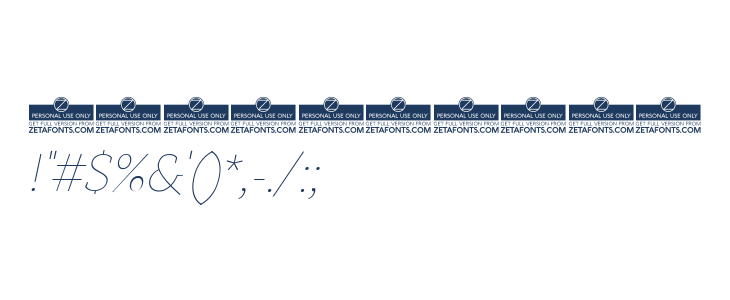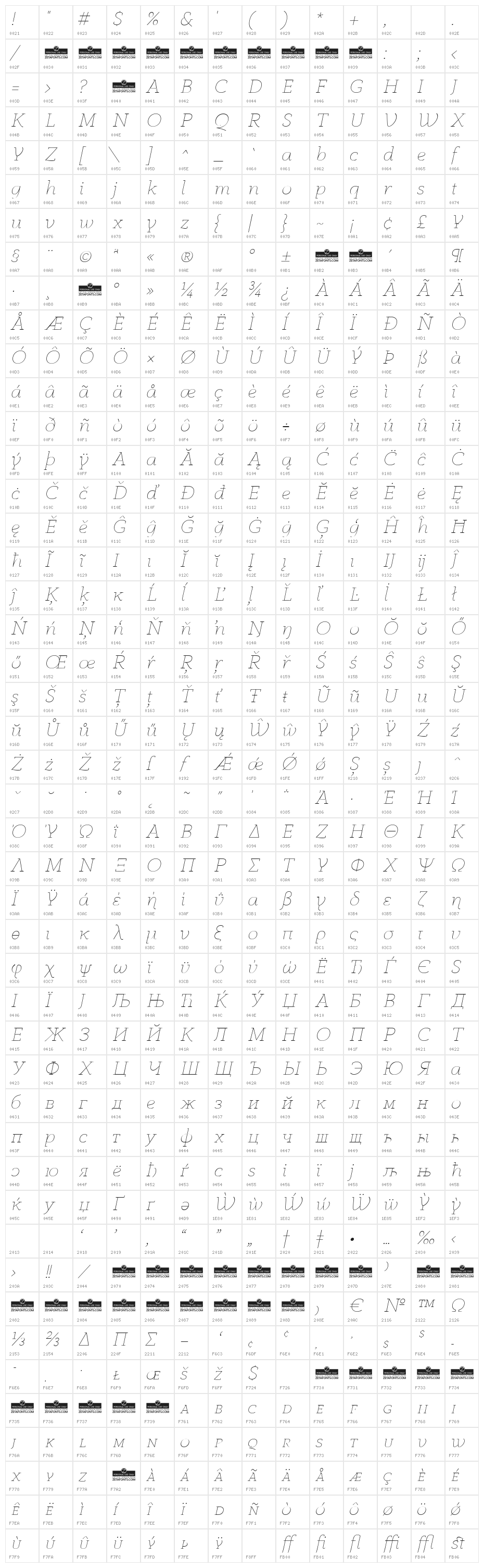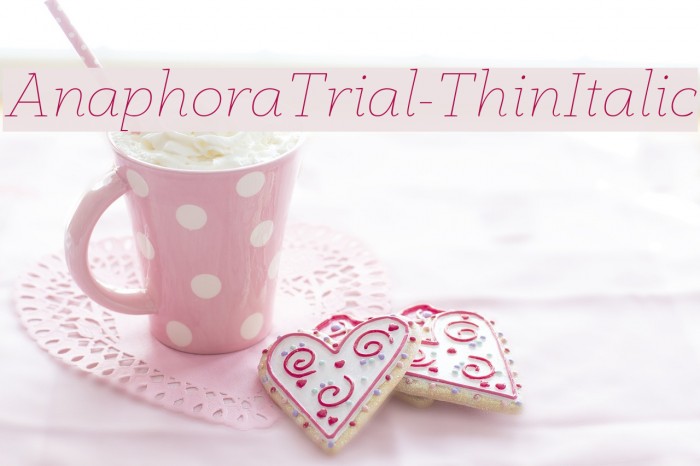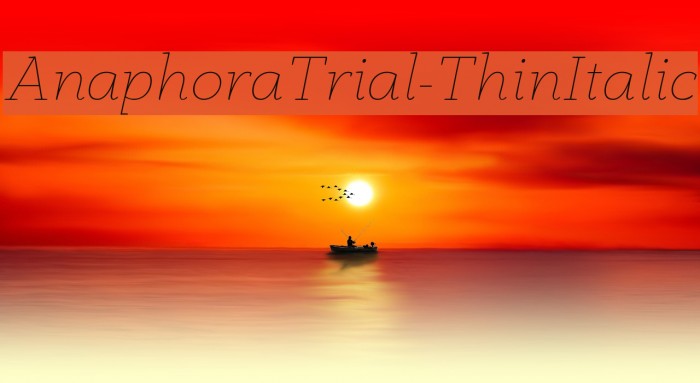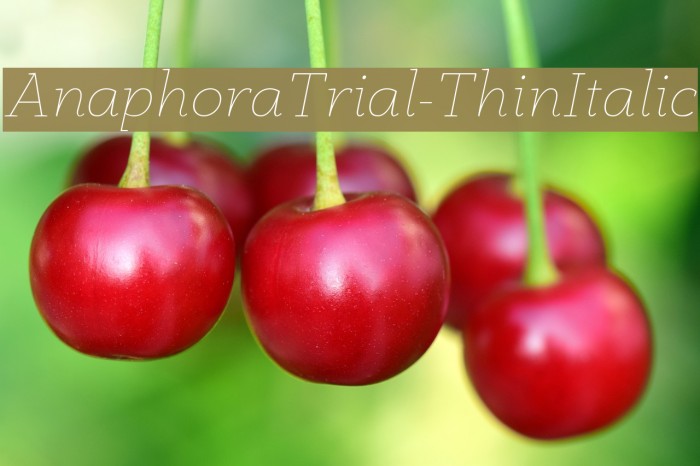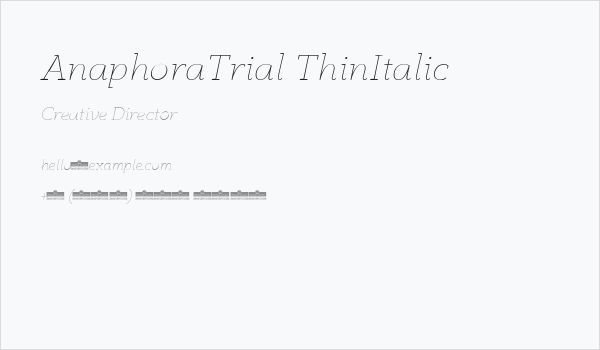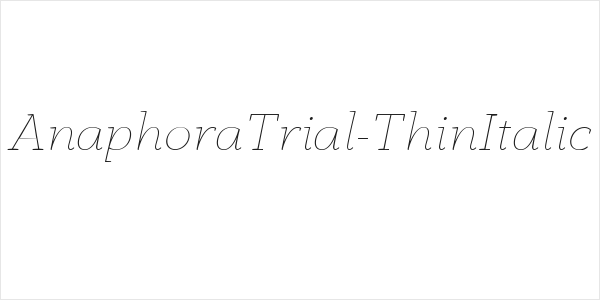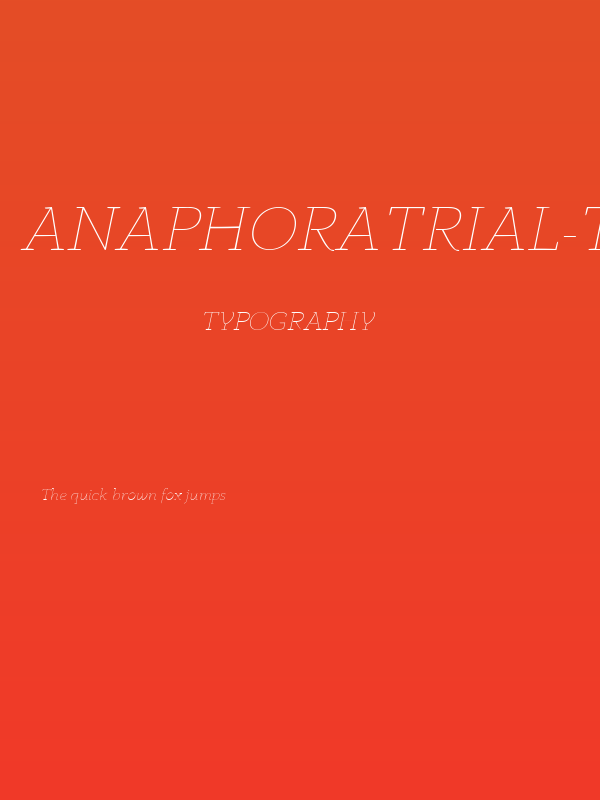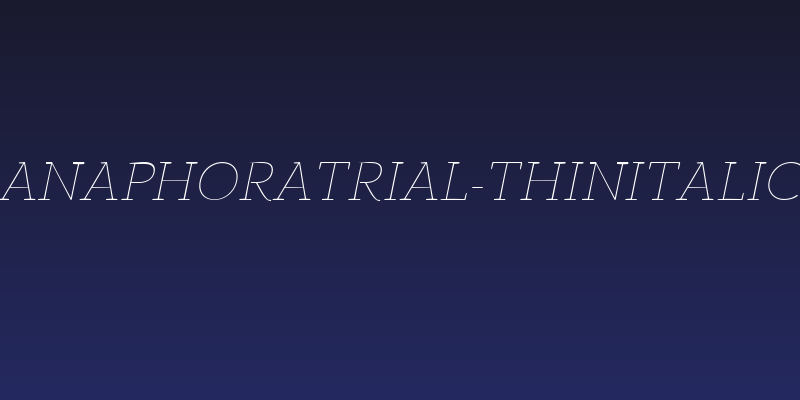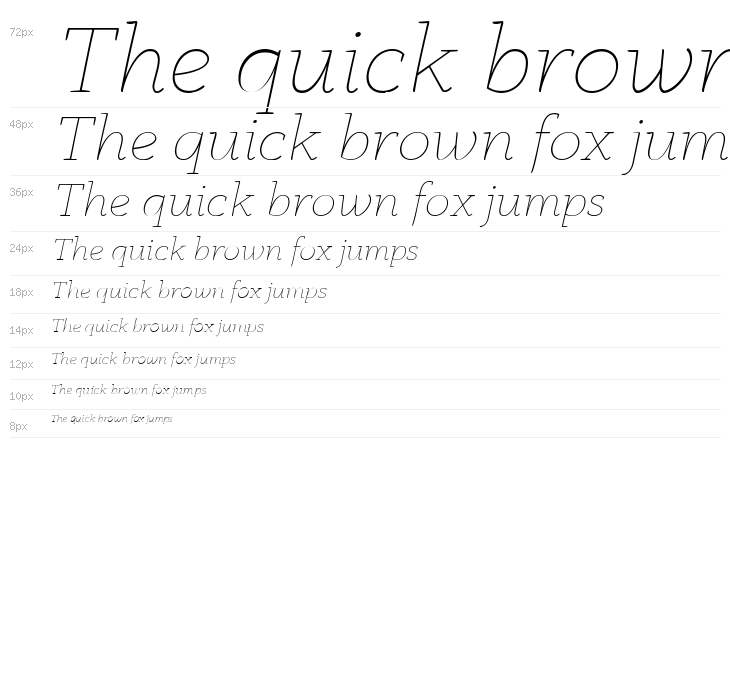
AnaphoraTrial-ThinItalic Font
AnaphoraTrial-ThinItalic Description
This font features an elegant and sophisticated design with a thin, italicized style. The characters are gracefully slanted, providing a sense of movement and fluidity. The strokes are delicate and refined, offering a high level of legibility despite their slender form. The uppercase letters maintain a classic structure, while the lowercase letters exhibit a slight cursive influence, adding to the overall elegance. The numerals and special characters are consistent with the font's thin and italicized nature, ensuring a cohesive appearance throughout. This font is ideal for projects that require a touch of sophistication and modernity.
| Overall Style | Elegant and sophisticated |
| Use Case | Headlines, Invitations, Branding |
| Proposed Projects | Ideal for wedding invitations, luxury branding, fashion magazines, and elegant website headers. |